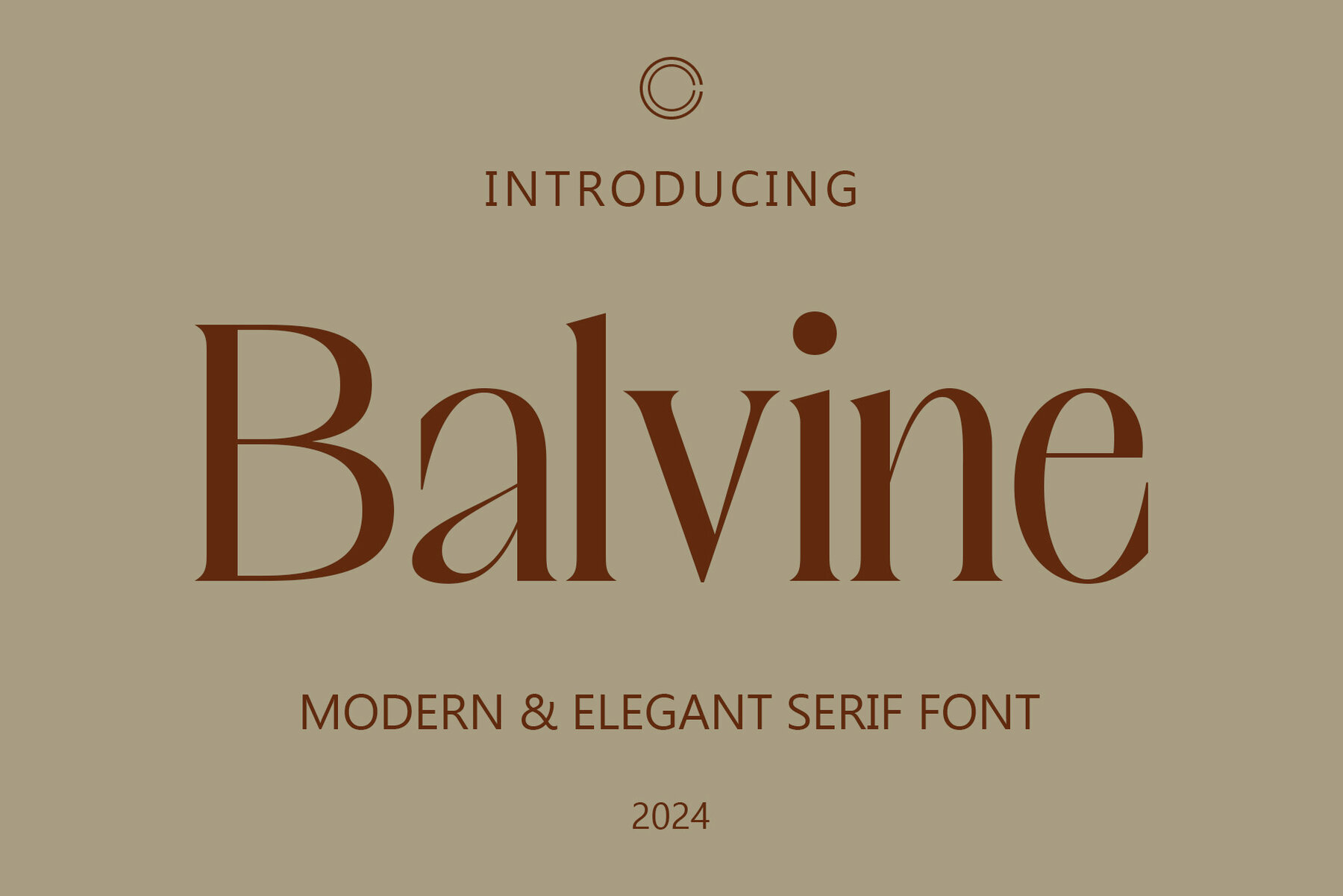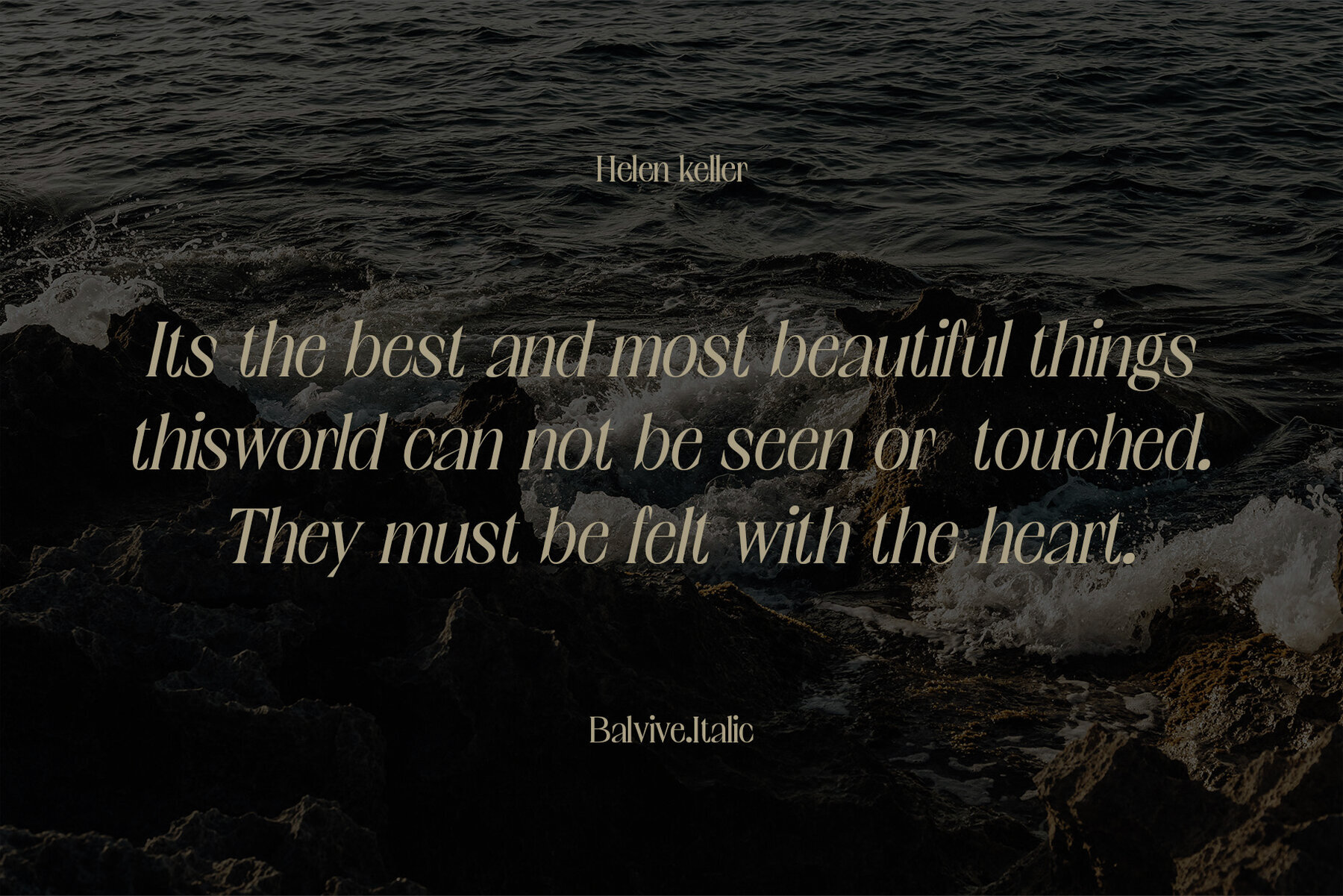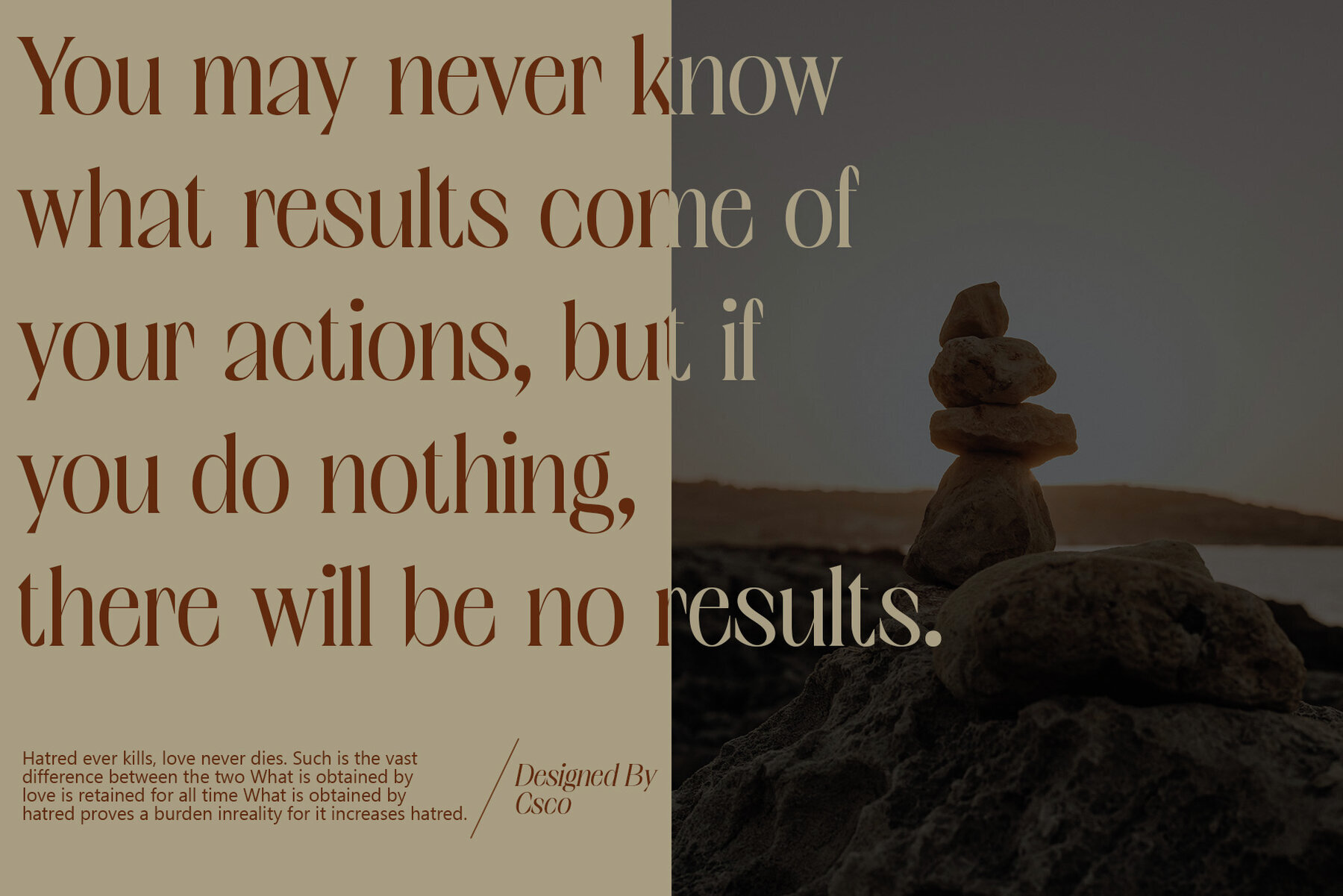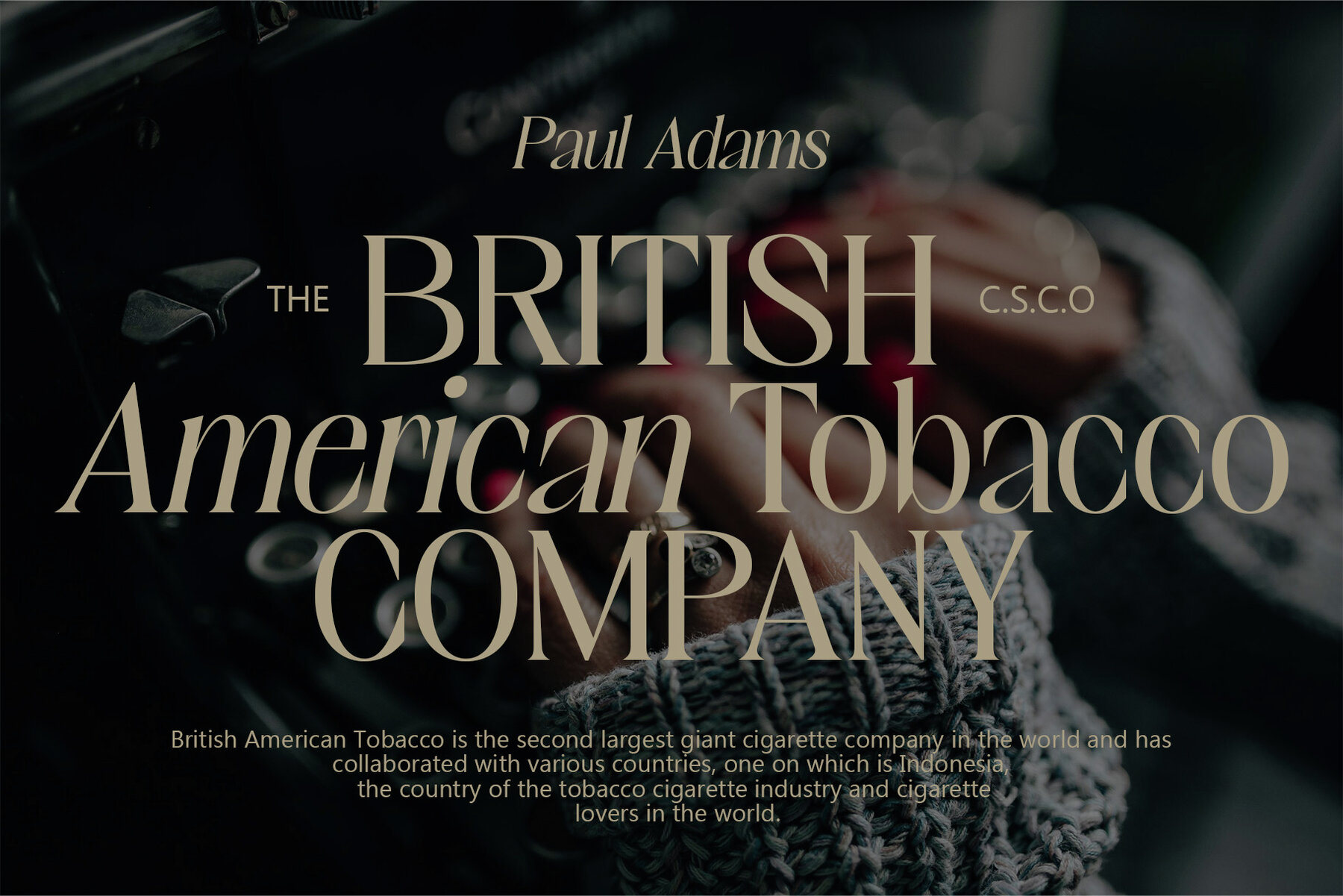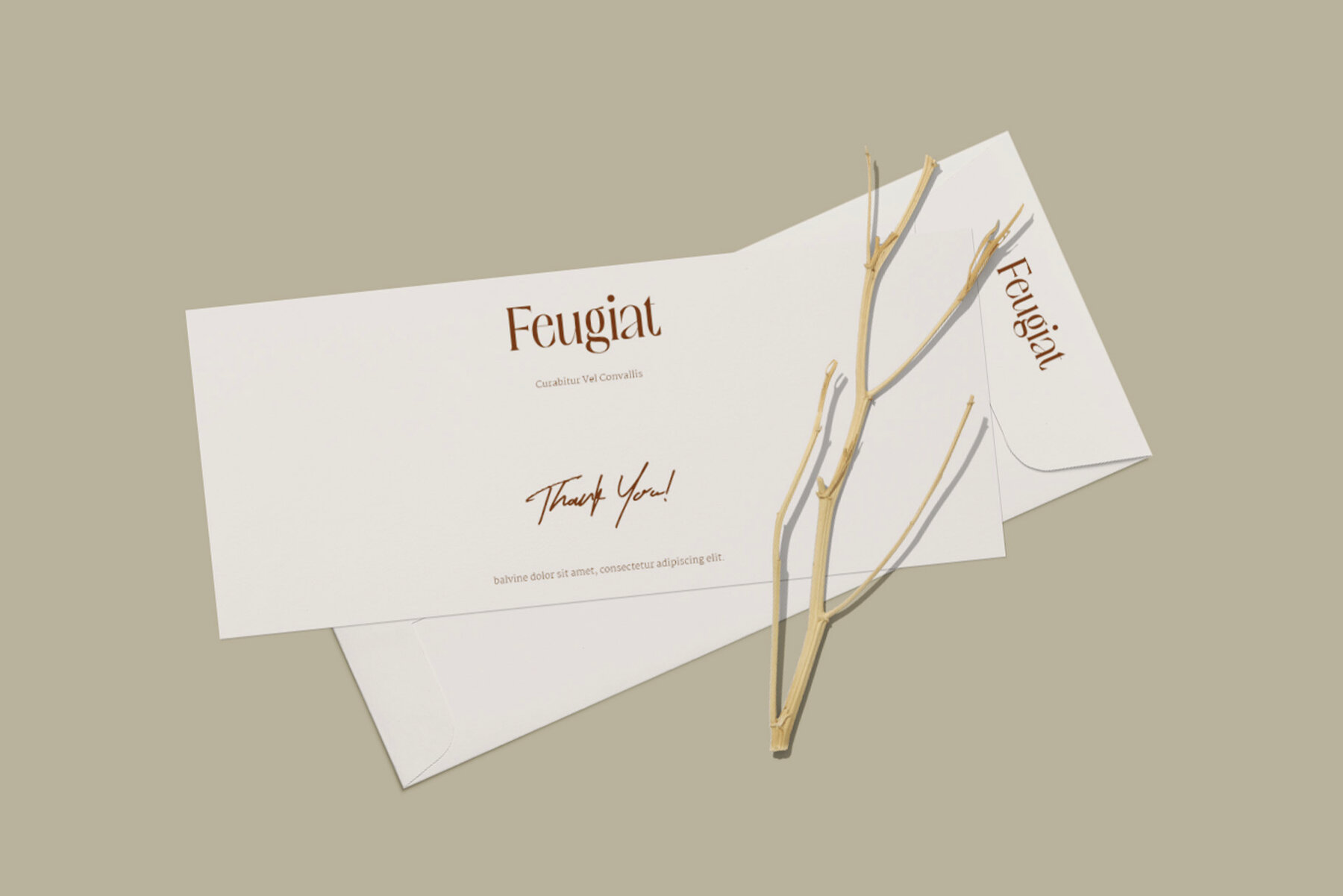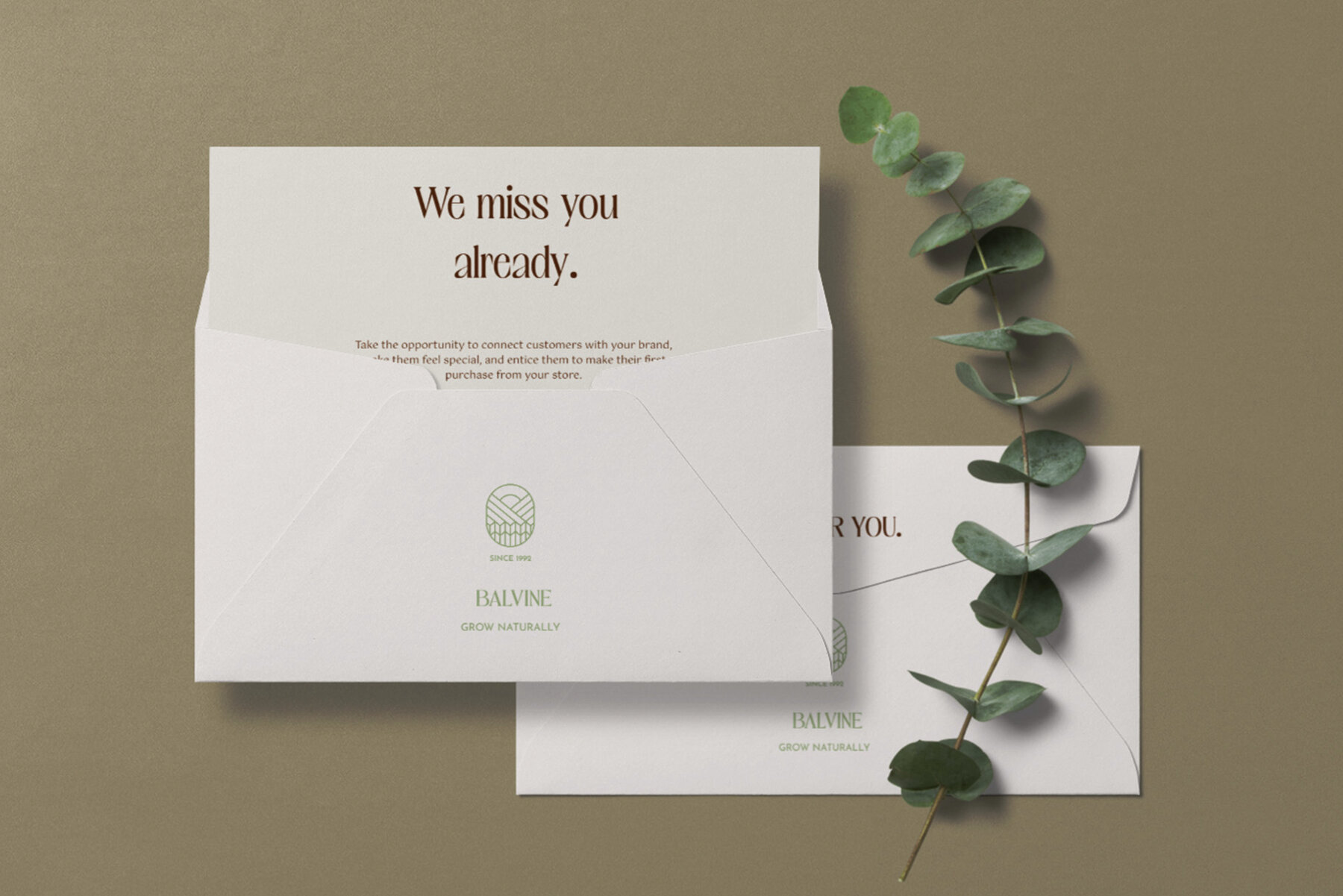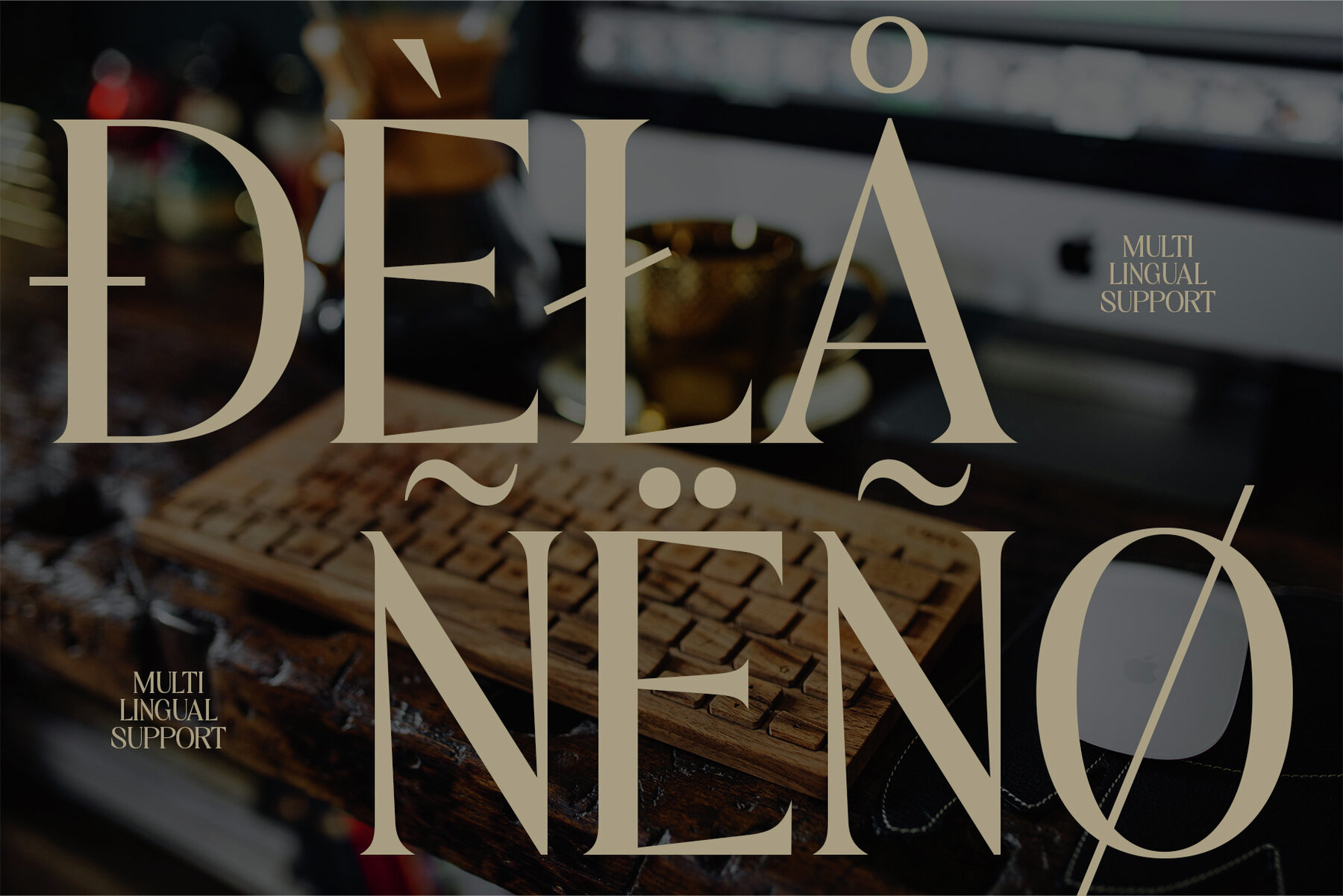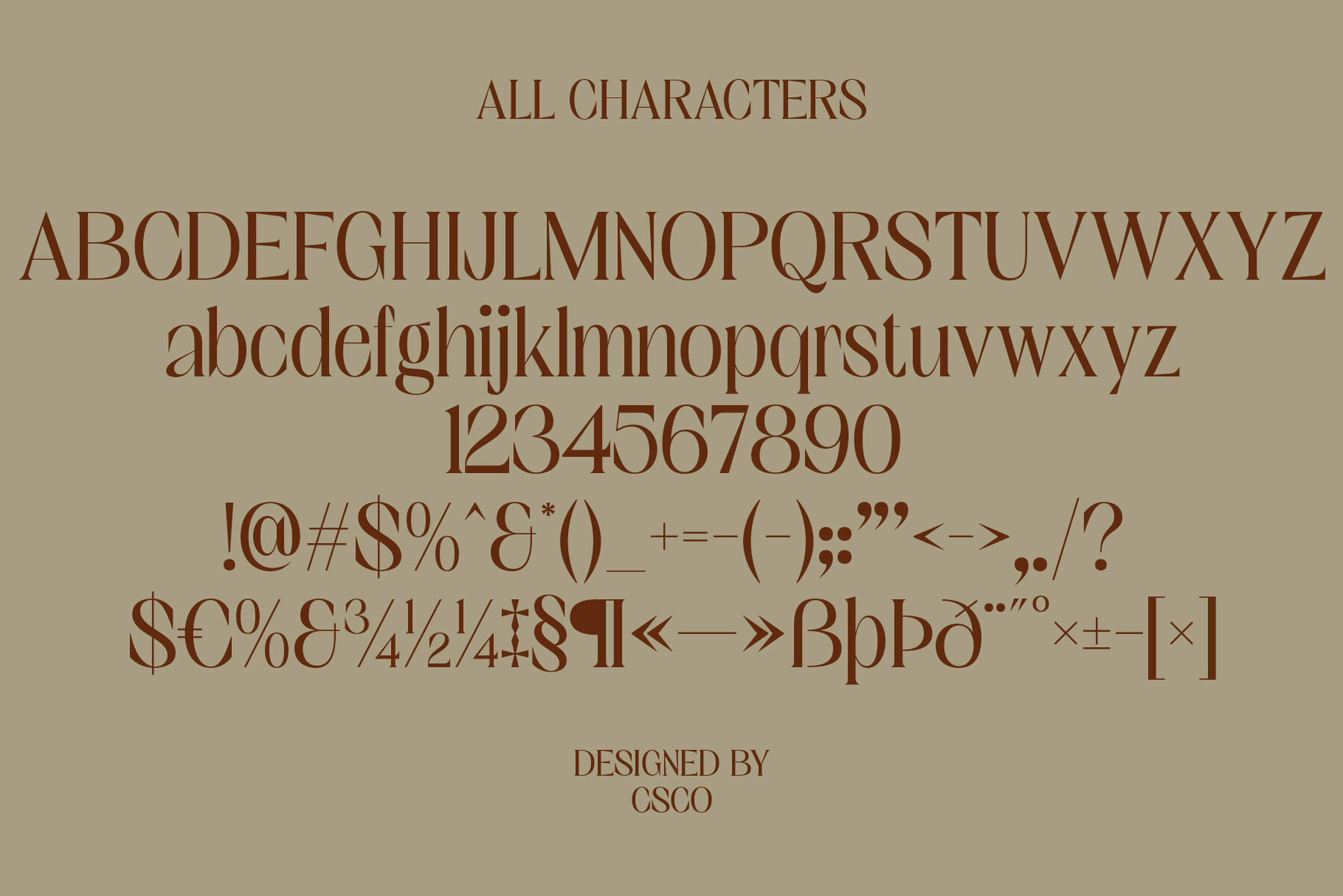
Balvine Font
Balvine font embodies sophisticated elegance, inspired by the dynamic world of beauty and fashion. With a design that echoes the grace of haute couture, it captures the essence of runway finesse, offering an aesthetic perfect for high-end fashion magazines. Balvine is crafted for editorial brilliance, seamlessly blending fashion-forward aesthetics with timeless elegance. It transforms ordinary text into captivating narratives, ensuring your layouts exude sophistication. Balvine's versatility allows it to adapt to various applications, whether you need to add chic allure to branding, poise to editorial layouts, or sophisticated charm to any design project. With Balvine, elevate your creative narrative through its stylish strokes that transcend the ordinary, providing a visual language rich in elegance. Incorporate Balvine into your designs to make a statement that combines style and substance, where every character narrates a story of elegance and timeless beauty. No specialized software is required to use this typeface. If you have any inquiries or need assistance, please feel free to contact us. We appreciate your support in enhancing your creative projects!Balvine: A Serif Masterpiece of Stylish Elegance
Editorial Excellence
Versatility Unleashed
Elevate Your Designs
Conclusion